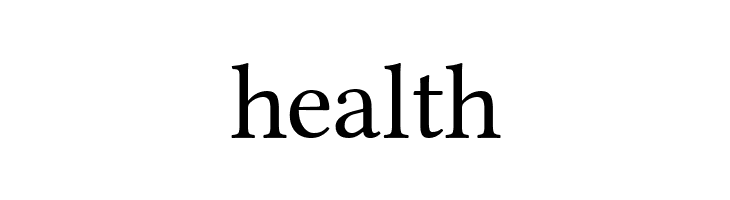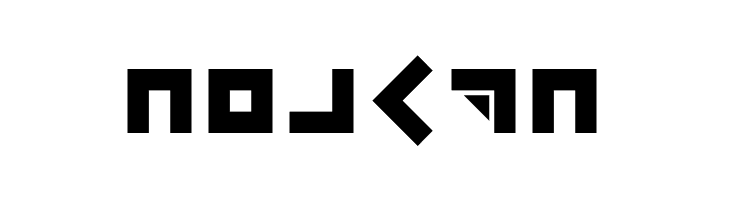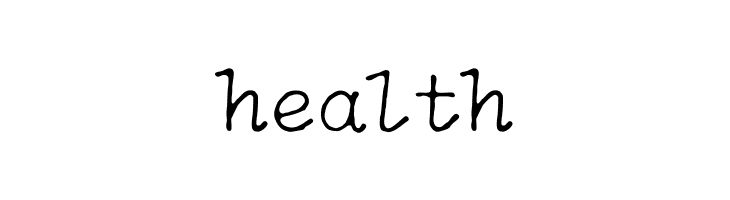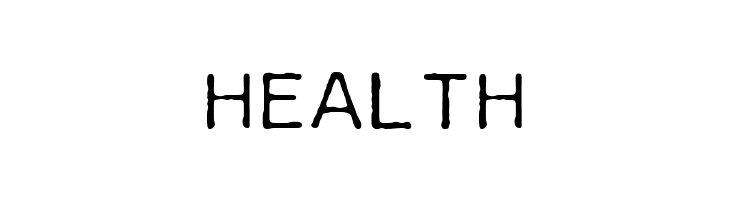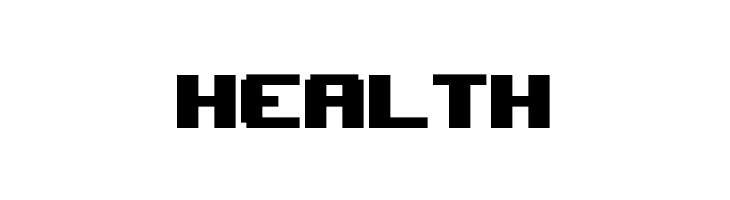
A bold, pixelated font with a retro digital style.
A bold, pixelated font with a retro, video game-inspired style.
A classic serif font with elegant, traditional letterforms and medium contrast.
A classic serif font with elegant strokes and medium contrast, suitable for versatile applications.
A bold, geometric font with a futuristic, digital aesthetic.
A vintage, handwritten-style font with dynamic, fluid characters.
A vintage, typewriter-inspired font with a hand-crafted feel.
A classic and elegant light italic font with medium contrast and smooth strokes.
A monospaced typewriter-style font with a vintage, textured appearance.
A vintage, typewriter-inspired font with a hand-drawn, playful style.